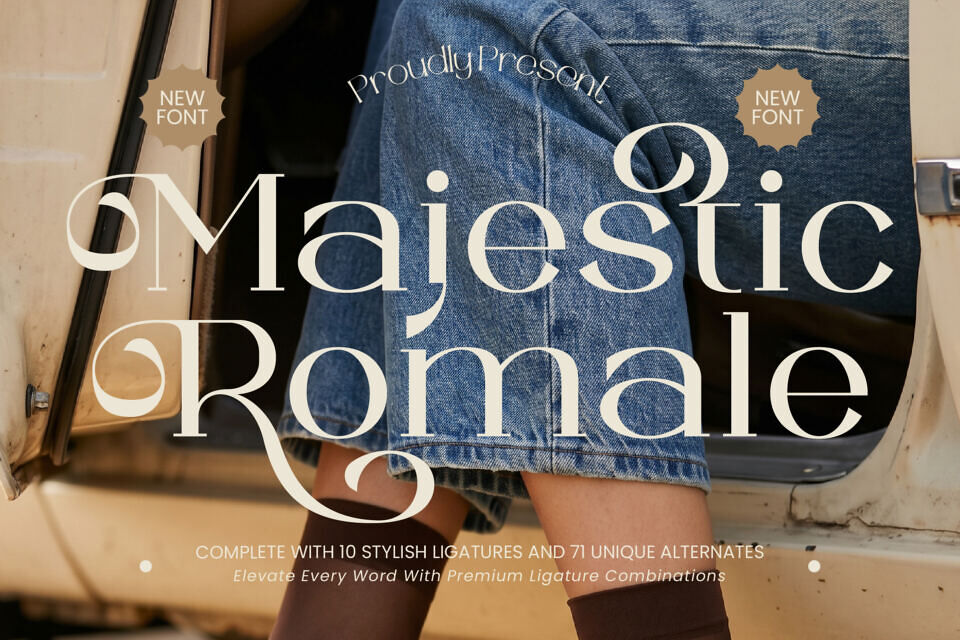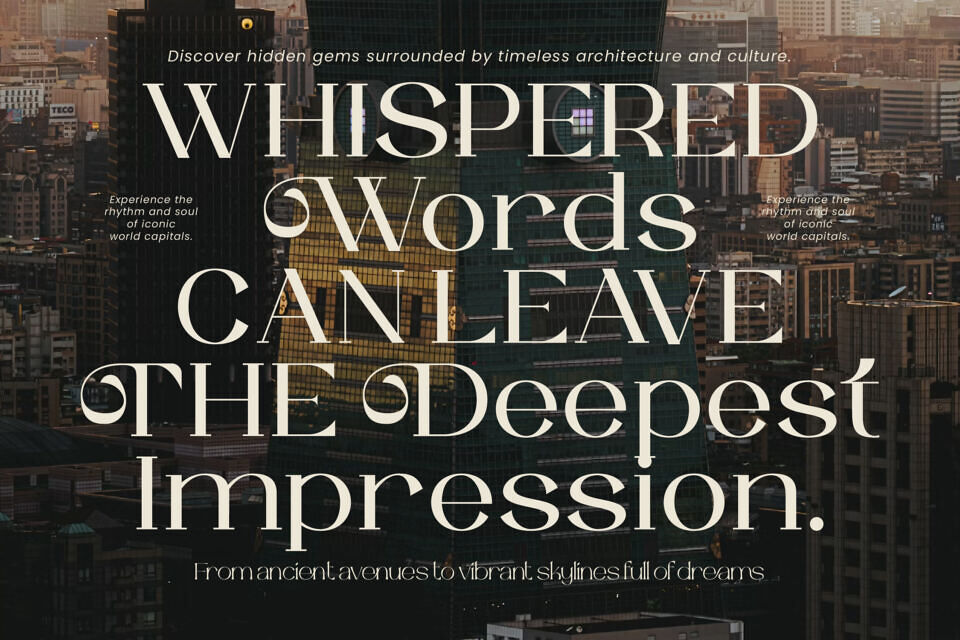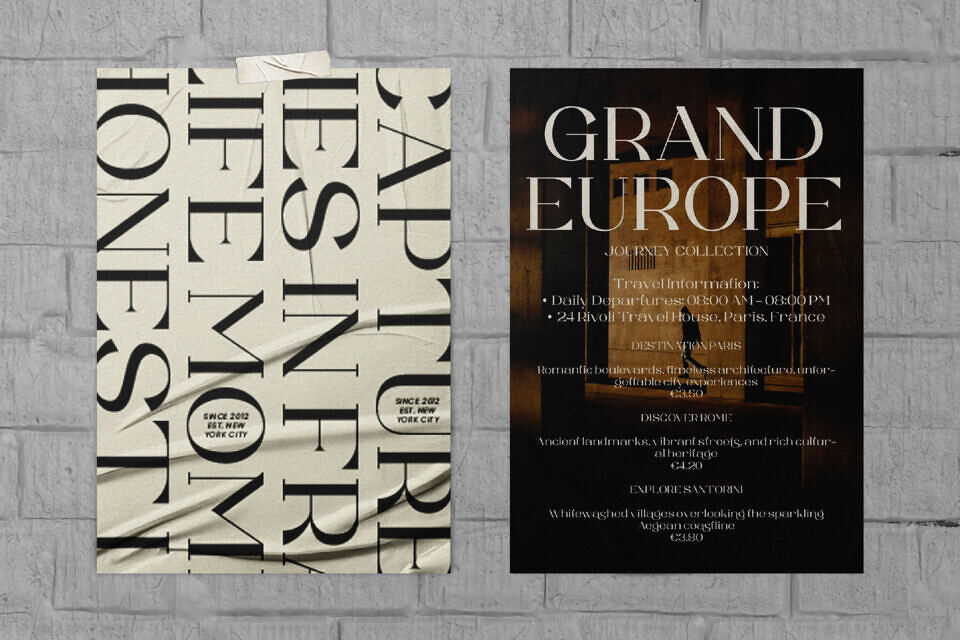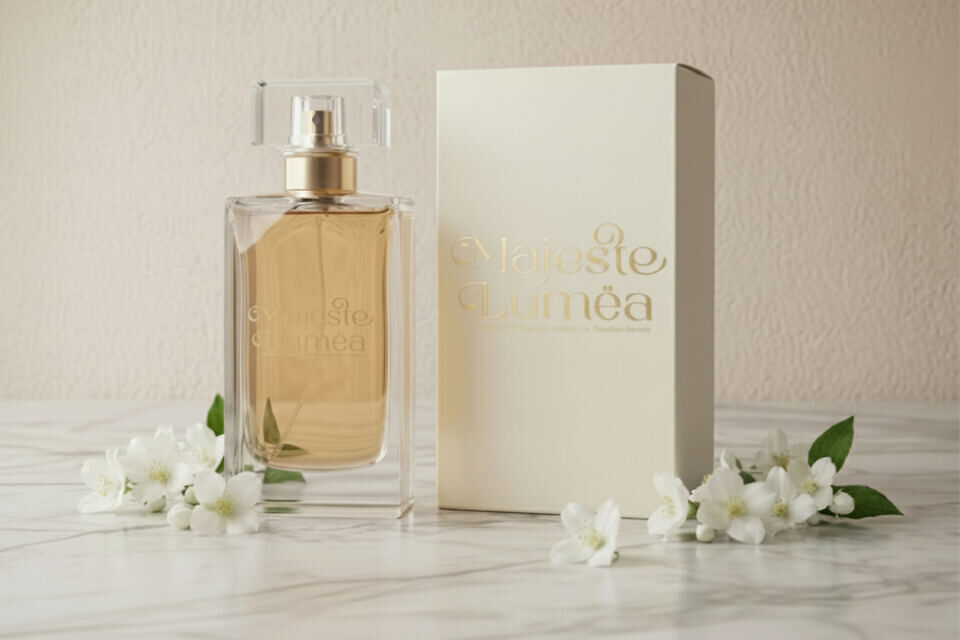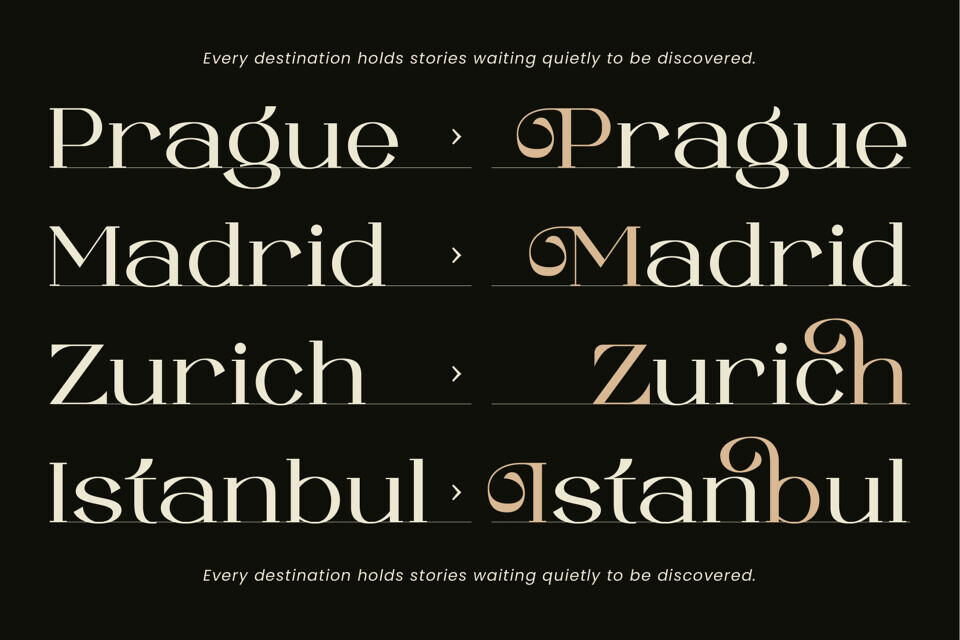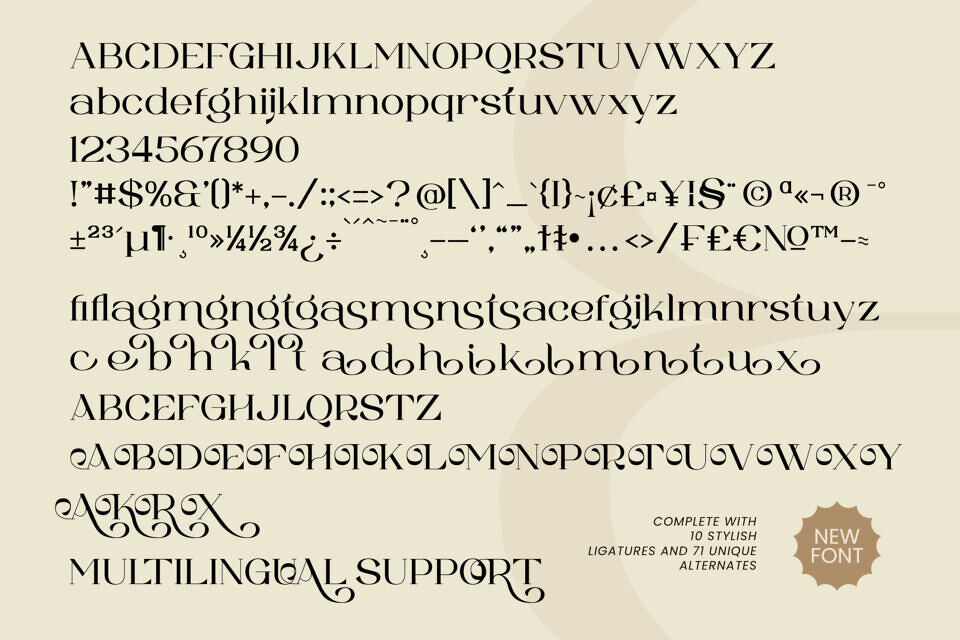
Majestic Romale Font
Majestic Romale is a sophisticated serif font that exudes elegance and luxury. Its carefully crafted curves and high-contrast strokes create a refined look.
With stylish ligatures and unique alternates, it elevates projects to a premium level. Inspired by luxury fashion and editorial design, it balances classic and modern styles, making it perfect for high-end branding, fashion, and beauty products, as well as editorial and wedding materials, where it adds a touch of exclusivity and sophistication.